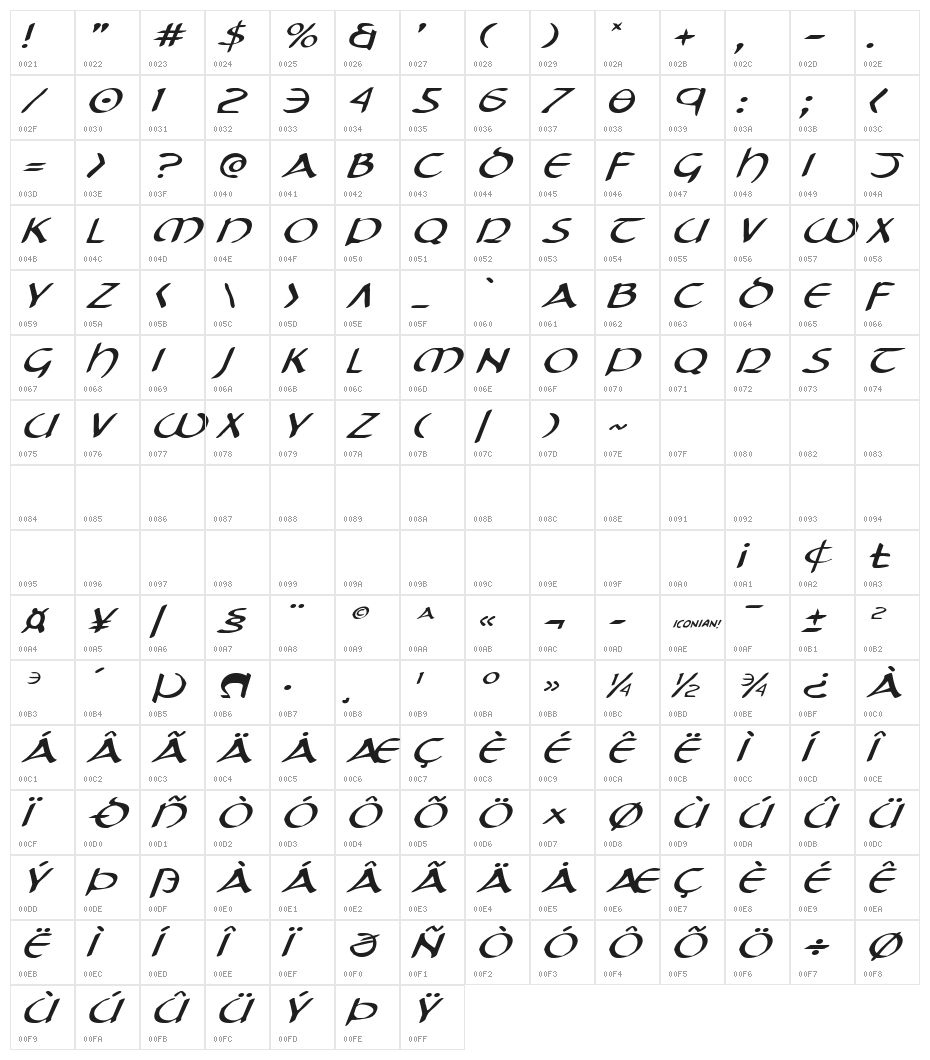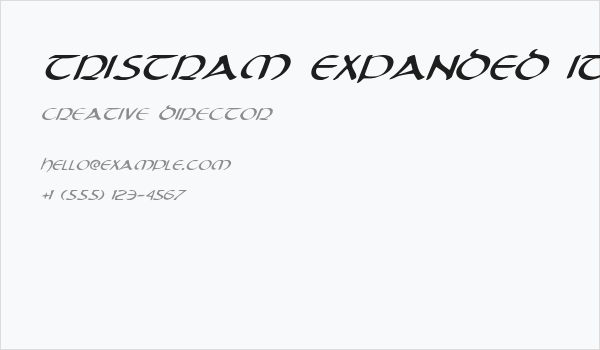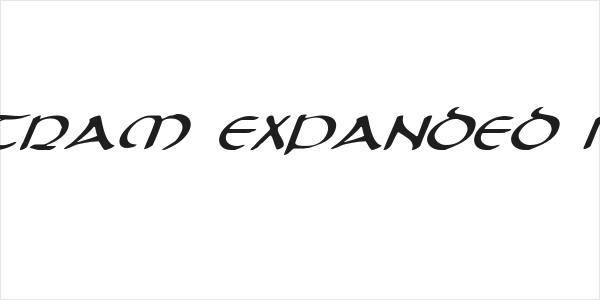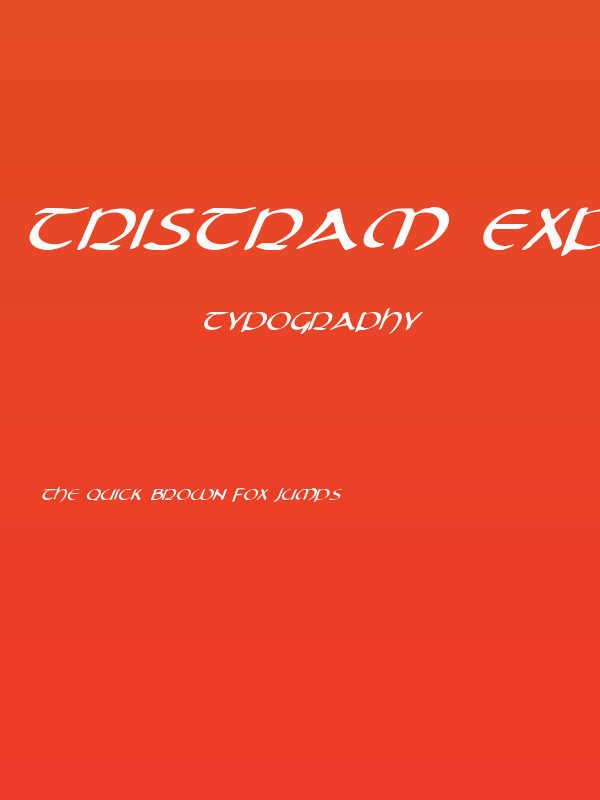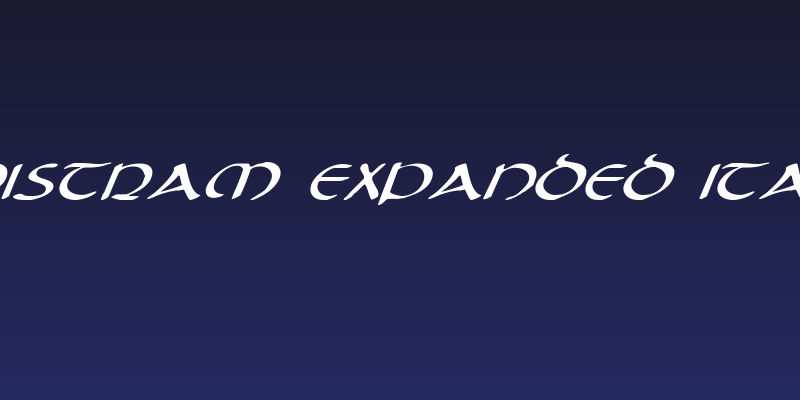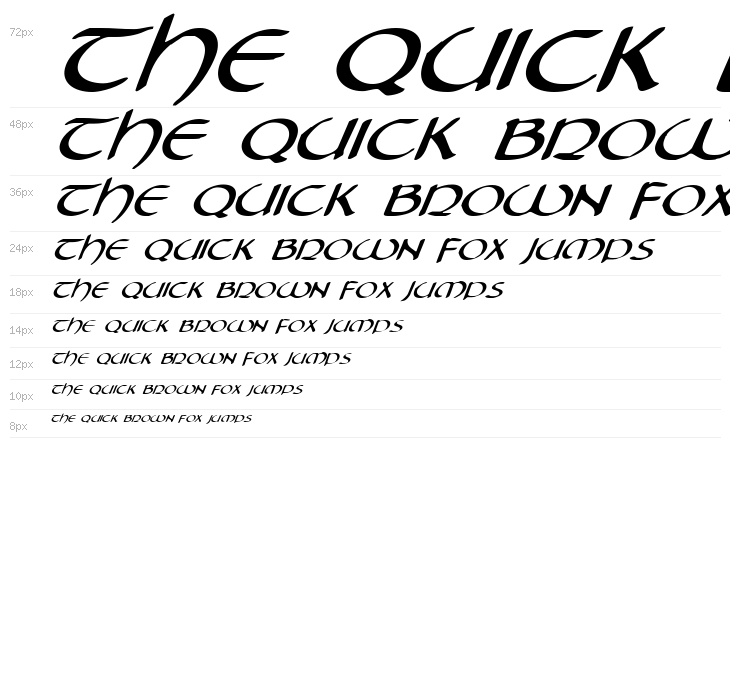
Tristram Expanded Italic Font
Tristram Expanded Italic Description
This font features a dynamic and flowing style with an italic slant, giving it a sense of movement and elegance. The characters are expanded, providing a unique width that enhances readability while maintaining a decorative flair. The strokes are smooth and slightly curved, adding a touch of sophistication. The font's design is consistent across uppercase, lowercase, and numerals, with special characters that complement the overall aesthetic. Its artistic nature makes it suitable for creative projects that require a distinctive and stylish appearance.
| Proposed Projects | Ideal for branding, invitations, posters, and artistic projects that require a distinctive and elegant touch. |